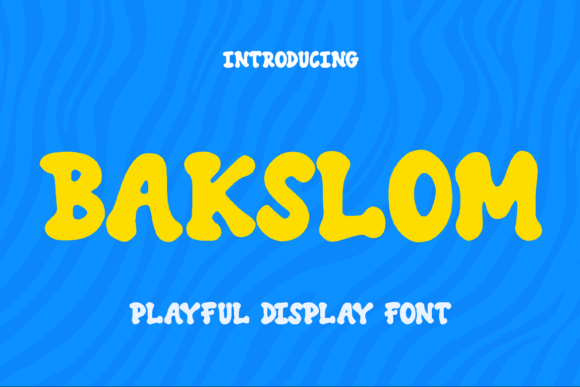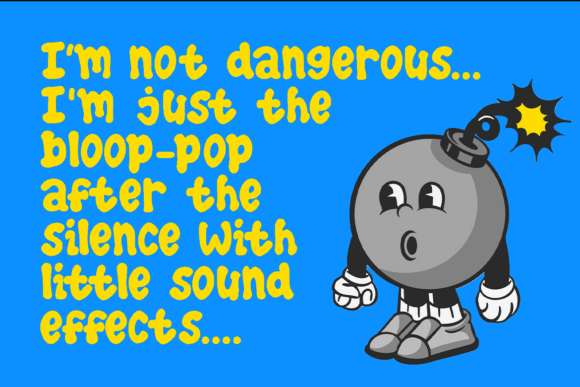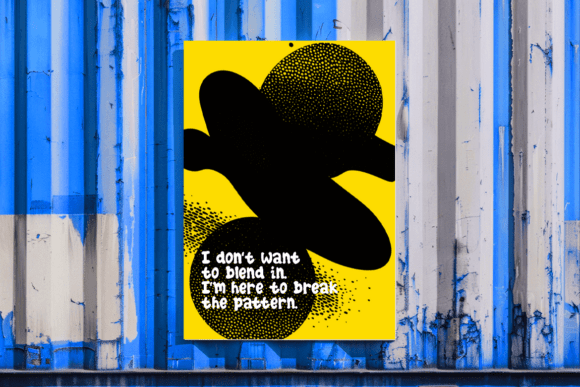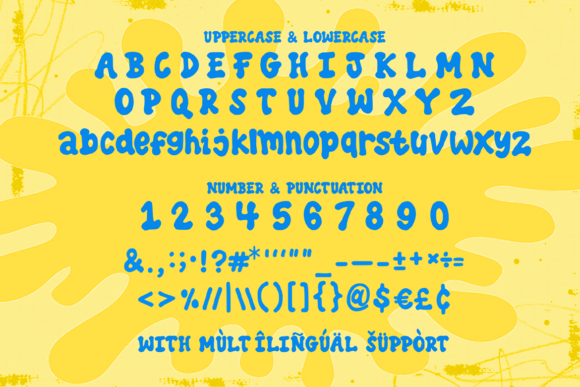
Bakslom Font: Bold, Bouncy, & Playful Display Font for Posters & Branding
About the Bakslom Font
Crafted with precision, the Bakslom Font is ready to bring your ideas to life. Proudly present Bakslom font, a bold and bouncy freehand display font full of character and charm. With its irregular lines and spontaneous strokes, Bakslom captures the feel of natural handwriting—fun, expressive, and totally unique.
Perfect for posters, headlines, social media graphics, branding, packaging, and anything that needs a splash of creativity. This font adds a joyful, handcrafted vibe that grabs attention and keeps things light-hearted.
Bakslom’s playful energy makes it ideal for headlines, short-form text in branding materials, and eye-catching packaging designs. It excels in applications requiring a hand-crafted, approachable feel, adding personality to logos, social media posts, and even short, impactful quotes. However, its irregular nature makes it less suitable for body copy or UI elements where legibility is paramount.
Consider pairing Bakslom with a clean sans-serif like Open Sans for a balanced contrast, or a more geometric sans-serif for a modern feel. For a touch of elegance, a thin serif font could complement its bouncy character, while a script font would add to the overall handcrafted aesthetic, but should be used sparingly.
Its core personality is undeniably joyful and expressive; projects aiming for a youthful, friendly, and creative image will find Bakslom a perfect fit. Brands focused on handmade goods, artisan products, or playful entertainment would benefit greatly from its unique charm.